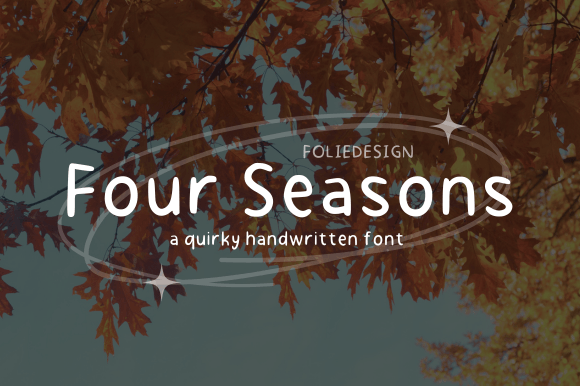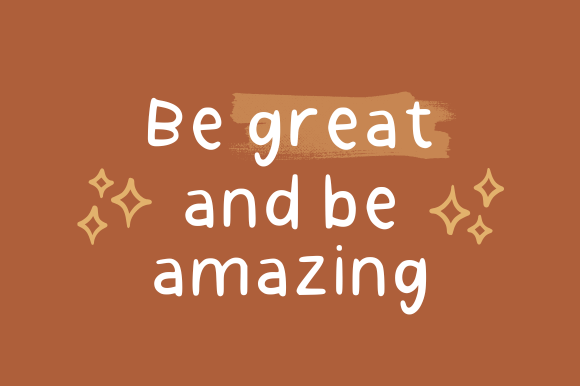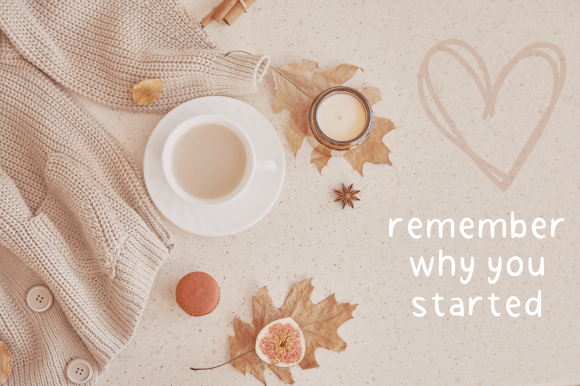
Four Seasons Font: A Cute Handwritten Font for Cricut & DIY Projects
About the Four Seasons Font
Add a touch of class to your work with the Four Seasons Font, a truly exceptional typeface. Four Seasons is a sweet and friendly handwritten font. You can use this font to jazz up your digital planner, journal, invitations, note-taking, or anything that requires a handwriting look.
Four Seasons’ friendly, handwritten style is ideal for projects requiring a personal touch, such as wedding invitations, greeting cards, or social media graphics. It works well in headlines, short quotes, and logos where its informal charm adds character. However, its less-than-optimal legibility makes it unsuitable for body text or UI elements requiring extended reading.
Pairing Four Seasons with a clean sans-serif font like Open Sans or Lato provides a strong contrast, balancing its casual script with a modern, readable counterpart. For a more elegant feel, consider pairing it with a classic serif like Garamond or a delicate script like Great Vibes, depending on the desired level of formality.
The overall personality of Four Seasons is undeniably cheerful and approachable, making it a perfect choice for brands focused on warmth, handmade products, or crafting. Avoid using it for projects requiring a professional or highly formal aesthetic.
Four Seasons Font Usage Examples
Four Seasons Font Example